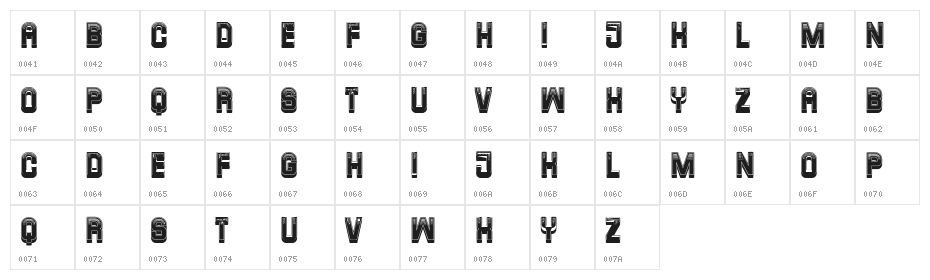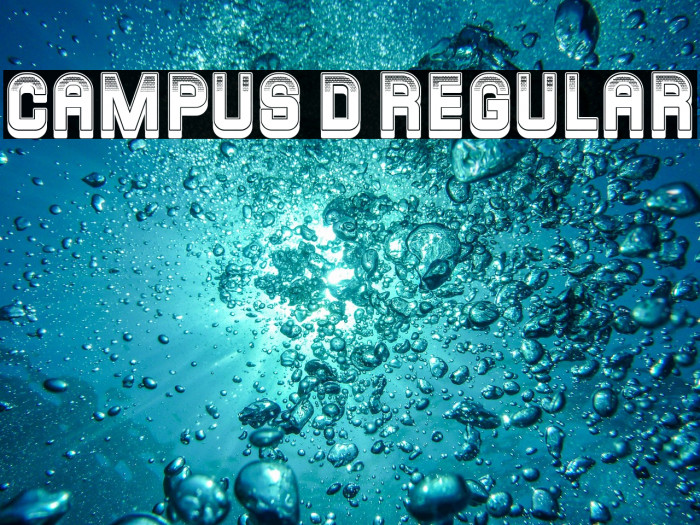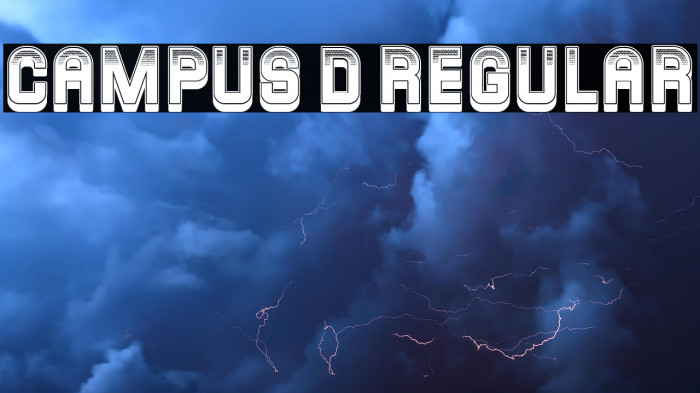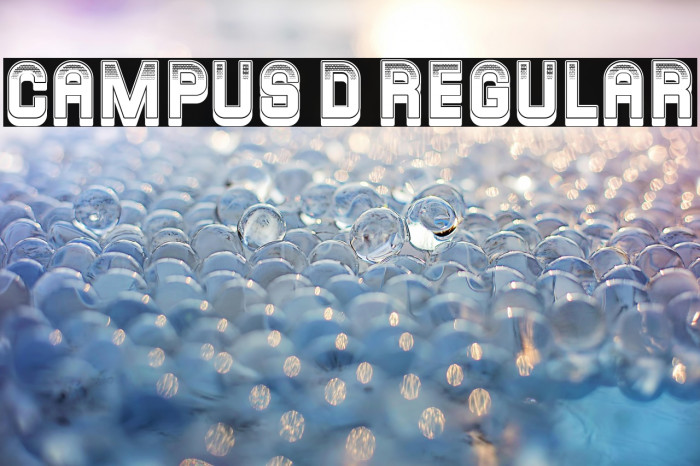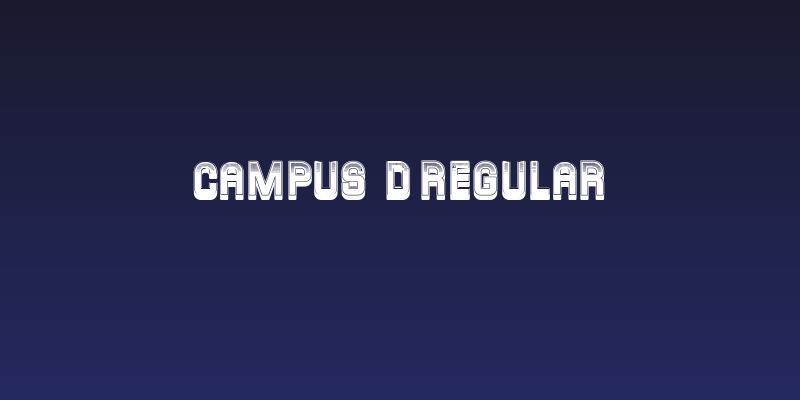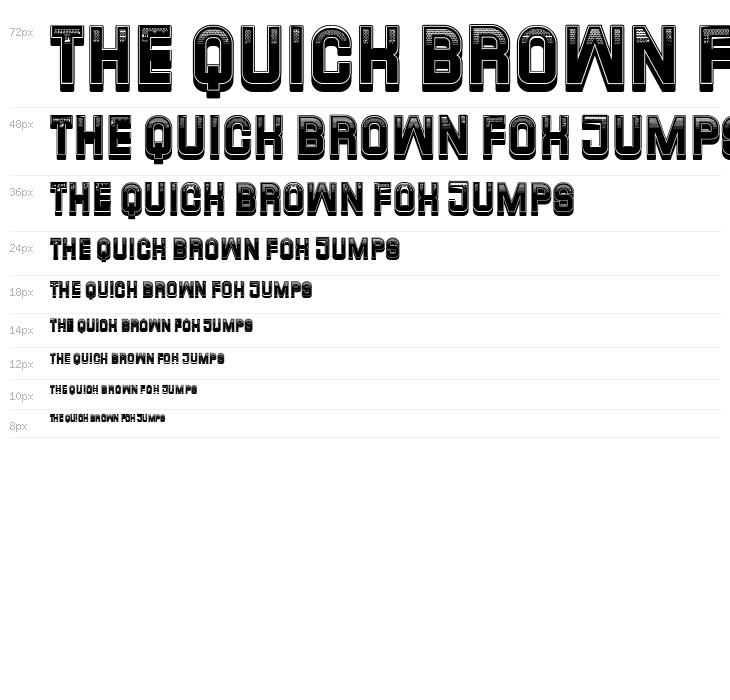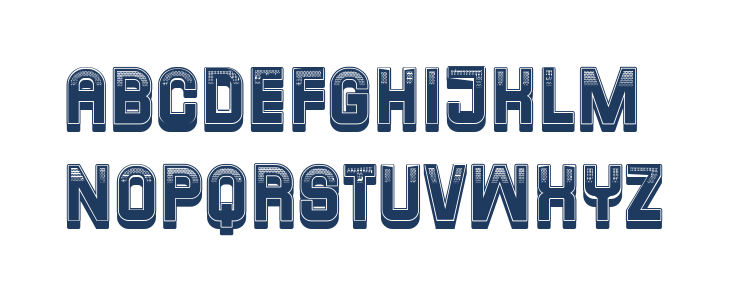
Campus 3D Regular Font
Campus 3D Regular Description
This font features a bold, three-dimensional design with a strong presence. The letters are capitalized, showcasing a blocky and robust structure that gives a sense of depth and solidity. The 3D effect is achieved through a combination of shading and outlines, creating a striking visual impact. The style is reminiscent of collegiate or varsity themes, making it ideal for projects that require a bold and authoritative look. The characters are evenly spaced, ensuring readability while maintaining a cohesive appearance. This font is perfect for designs that need to stand out and make a statement.